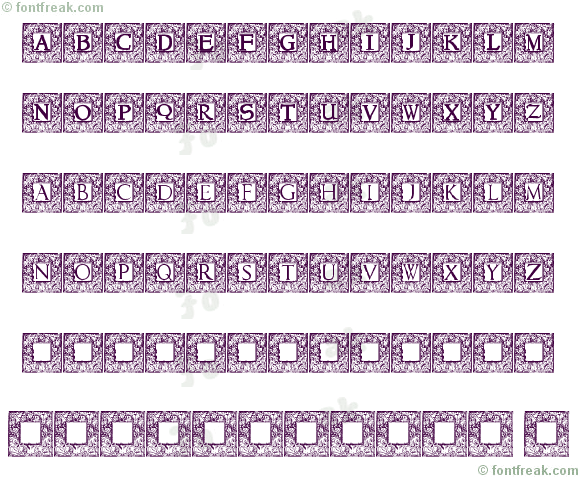
Topiary_Initials
Topiary is a unique decorative display font designed by Paul Lloyd that showcases a whimsical style, perfect for various creative projects. This freeware font falls into the category of decorative typefaces, characterized by its intricate, ornamental design. Each letter is crafted with a distinct artistry, featuring a blend of bold strokes and delicate detailing that evoke the beauty of meticulously trimmed hedges in a garden. The consistent stroke weight provides a sturdy structure, while the slight contrast adds a touch of elegance, making it visually appealing for a variety of uses.
The Topiary font is particularly well-suited for wedding invitations, where its enchanting design can convey a sense of romance and charm. Additionally, it can be an excellent choice for children’s book covers, creating an inviting atmosphere that appeals to younger audiences. Restaurant menus can also benefit from this font, offering a playful yet sophisticated look that can attract diners' attention. Graphic designers may find Topiary an ideal option for branding projects, adding a memorable touch to logos and promotional materials, while content creators can use it for eye-catching social media graphics.
Targeted primarily at graphic designers, small business owners, and content creators, the Topiary font serves as a versatile tool in their creative arsenal. Its unique aesthetic allows for imaginative expression, making it a standout choice for those looking to enhance their projects with a touch of nature-inspired elegance. The Topiary font free download provides easy access to this delightful typeface, allowing users to explore its potential in their designs and bring a whimsical flair to their work. With its distinctive style and adaptability, Topiary is sure to leave a lasting impression.